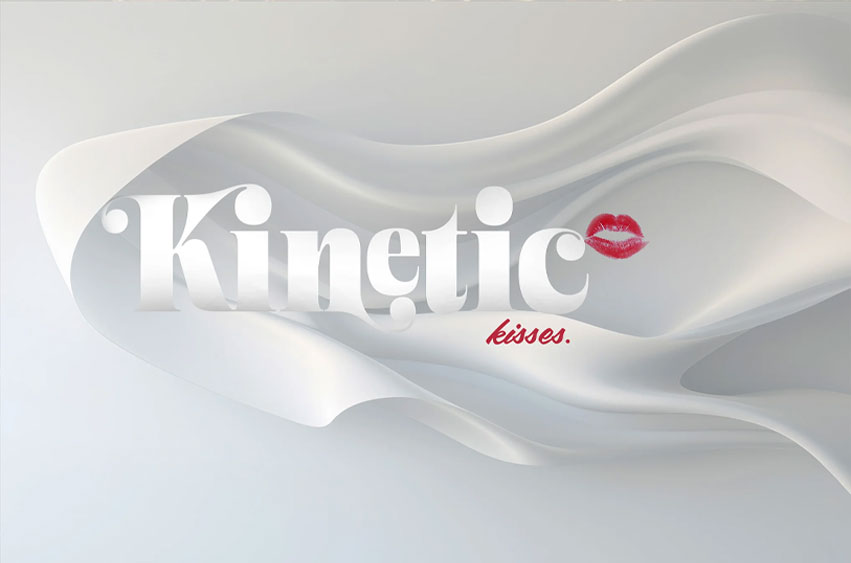
Kinetic Kisses Font
Kinetic Kisses Font is the Display Serif font crafted for casual vibes and versatile use. Whether you’re working on logos, posters, or other creative projects in need of Stylistic Alternates and Gorgeous Ligatures, this typeface has you covered.
• Laid-back Display Serif Design: Immerse yourself in the relaxed charm of Kinetic Kisses, a favorite among creative minds.
• Versatile Creativity: Ideal for various projects, effortlessly making your designs stand out.
Why Choose Kinetic Kisses?
• Relaxed and Trendy: Elevate your designs with Kinetic Kisses, purposefully designed for a chill and trendy vibe.
• Inspired by Joyful Trends: Kinetic Kisses draws inspiration from recent top-sellers, aligning seamlessly with joyful design preferences.